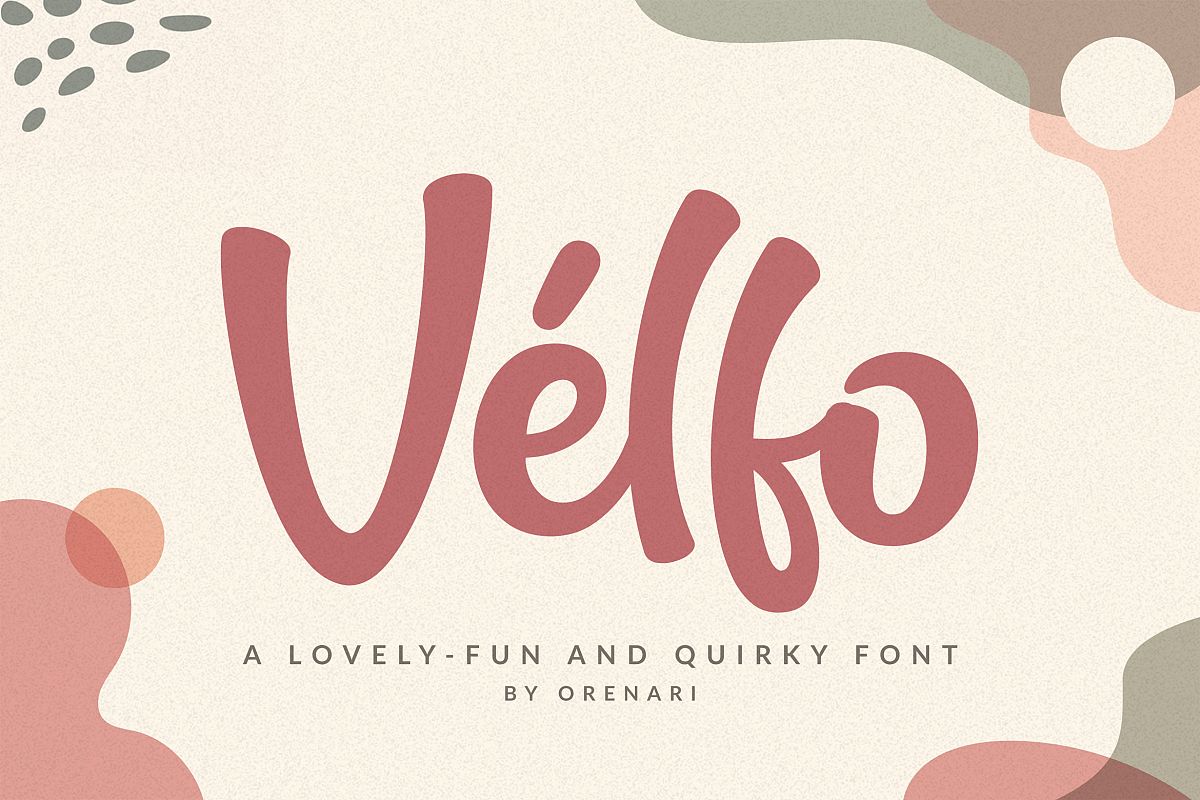
Velfo | A Lovely-Fun And Quirky Font
Velfo is a lovely-fun and quirky display font. The authentic lovely touch makes it a perfect mates for your projects, in any design purposes.